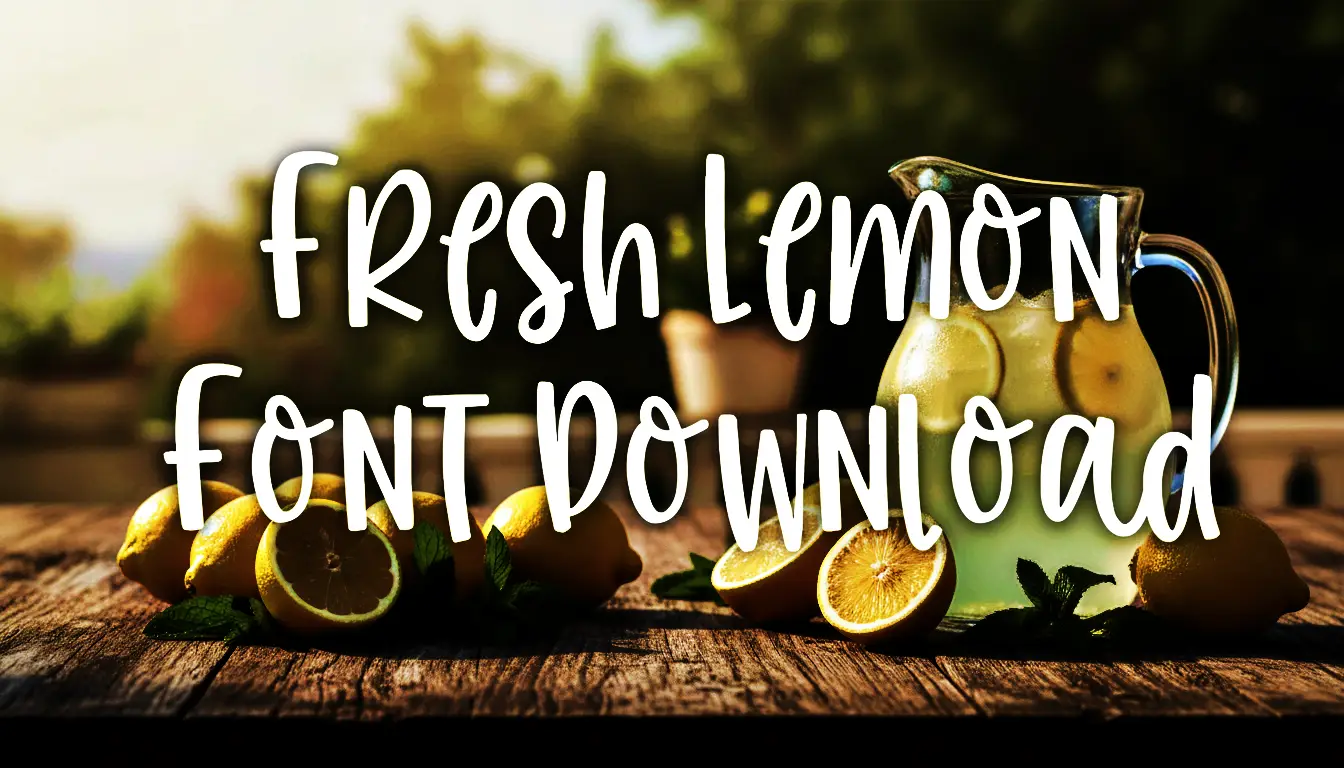
Fresh Lemon Font
Fresh Lemon
Fresh Lemon is a script font. Its flowing, pen-made letters give names and short phrases a personal, polished look. You can download it for free and test it with your own words in the preview above.
What You Can Type With Fresh Lemon
You get every letter from A to Z in both cases and all the numbers from 0 to 9, which means Fresh Lemon can handle full sentences, dates and prices. Everyday marks like &, !, ? and @ are there too. There are no accented letters like é or ñ, so it's best kept to English text.
Where Fresh Lemon Works Best
Fresh Lemon is a natural fit for wedding invitations, logos and signature-style headings. Script fonts read best in short bursts, so keep it to names, titles and one-line quotes. Skip all caps: script capitals are drawn to start a word, not to fill one.
Does Fresh Lemon support accented letters?
No. Fresh Lemon has no accented letters such as é, ñ or ü, so it's best for English text.